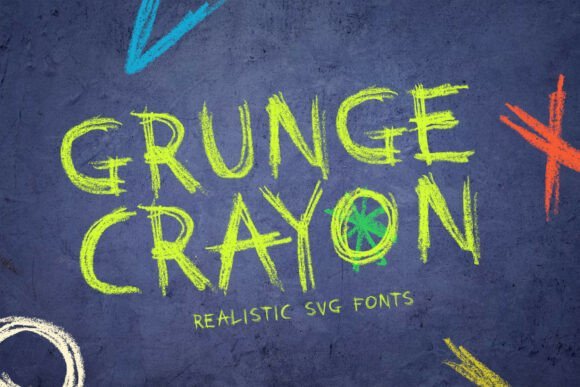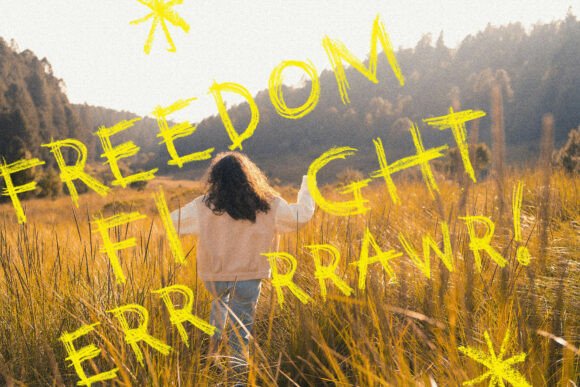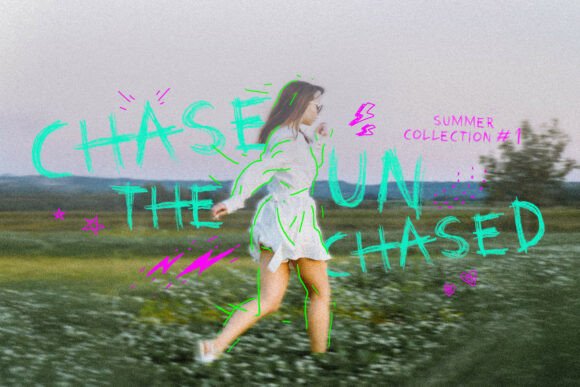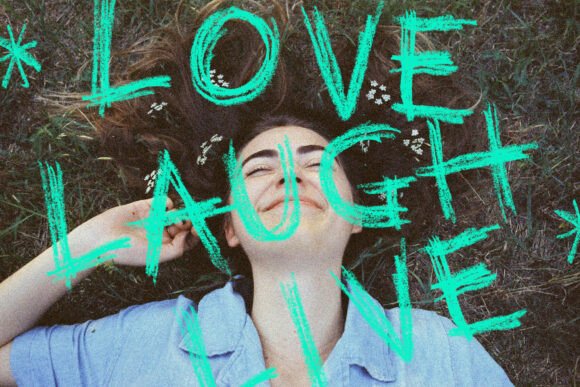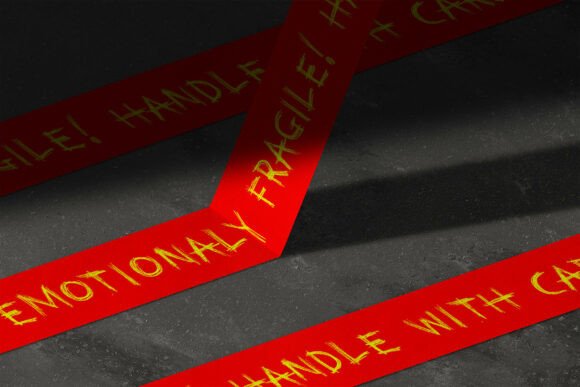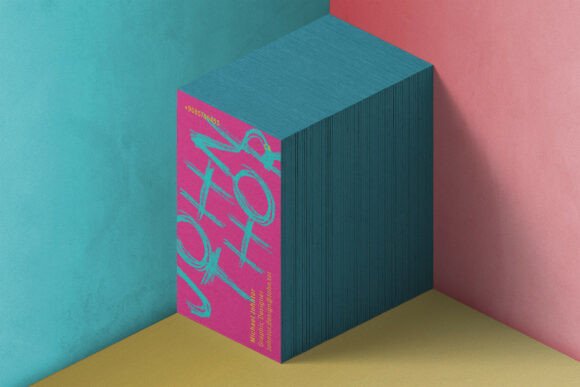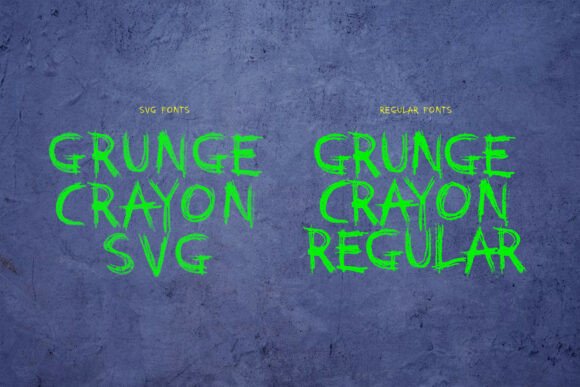
The Joy of Imperfect Design
Who among us hasn’t experienced the thrill of creating something with a crayon as a child? The vibrant colors, the messy texture, and the unbridled creativity – it’s a feeling that stays with us long after we grow up. For designers, capturing that same essence of childhood wonder in their work can be a challenge. That’s where the Grunge Crayon Font comes in, a unique typeface that brings a realistic crayon texture to design.
With its genuinely handwritten, grunge style, the Grunge Crayon Font is perfect for projects that need a hand-drawn feel. Whether you’re working on a children’s book, a music festival poster, or a social media campaign, this font is sure to add a playful touch to your designs. Its versatility and stylistic features make it a valuable asset for any designer looking to add some personality to their work.
Grunge Crayon Font Key Features
- Font Family: Grunge Crayon
- Unique Characteristics: Distressed, grungy, and crayon-like texture, perfect for adding a playful and creative touch to designs.
Grunge Crayon Font Review
Grunge Crayon Font is an interesting addition to the world of fonts. At first glance, it’s clear that the designers aimed to capture the essence of 90s grunge and the nostalgic feeling that comes with it. ✨ The bold, hand-drawn style and the subtle texture give it a unique look that’s sure to grab attention.
Here are some of the things that work well with Grunge Crayon Font:
- ✨ Unique and eye-catching design that’s perfect for making statements
- ✨ Great for creating a nostalgic or retro vibe in your designs
- ✨ Suitable for use in posters, flyers, and other promotional materials
- ⚠️ May not be suitable for use in body text due to its bold and ornate design
- ⚠️ Limited font sizes and styles, which can make it difficult to customize
- ⚠️ May not be suitable for use in formal or professional settings
Overall, Grunge Crayon Font is a great choice for designers looking to add a bit of flair and personality to their work. While it may not be suitable for every project, it’s definitely a unique and interesting option to consider.
The Grunge Crayon Font is ideal for creative and artistic projects, such as:
Children’s book illustrations
Handmade or DIY projects
Quirky or vintage-themed designs
Be sure to experiment with different font sizes, colors, and effects to achieve the desired look.
Alternatives to Grunge Crayon Font
Pacifico is a beautiful, cursive font that resembles a handwritten style. It’s perfect for designs that require a touch of elegance and sophistication. When to use: Wedding invitations, birthday cards, or any design that needs a romantic feel.
Pacifico is more refined and polished compared to Grunge Crayon Font, which has a more distressed and imperfect look. While Grunge Crayon Font is great for creating a laid-back, casual vibe, Pacifico is better suited for designs that need a touch of sophistication.
Great Vibes is a fun, energetic font that’s perfect for designs that need a playful touch. It’s great for titles, headings, and any design that requires a bold statement. When to use: Social media posts, event promotions, or any design that needs a fun and energetic vibe.
Great Vibes is more energetic and playful compared to Grunge Crayon Font, which has a more laid-back and casual feel. While Grunge Crayon Font is great for creating a relaxed atmosphere, Great Vibes is better suited for designs that need to grab attention.
Alex Brush is a beautiful, handwritten font that’s perfect for designs that need a personal touch. It’s great for titles, headings, and any design that requires a touch of elegance. When to use: Branding, logos, or any design that needs a unique and personal feel.